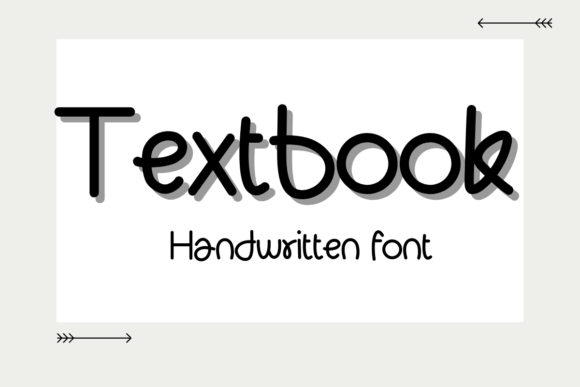
Welcome to the world of Textbook Font, where creativity knows no bounds. This expressive, sans serif font is handcrafted by the renowned Sirinart, a master of the written arts. With its delicate strokes and unmistakably authentic style, Textbook Font has quickly become the darling of those who seek to make a bold statement.
Step into a world where your imagination takes flight. Picture the sheer beauty of hand-lettered banners, each character bursting with personality. Envision social media posts that leap off the screen, captivating your audience with their charm and individuality. Unleash your boundless creativity in designing mugs, cards, shirts, and stationery that speak to your soul. Textbook Font is the perfect companion for those who dare to be different.
With Textbook Font, your designs will transform into captivating works of art. Its natural flow and seamless integration into various designs make it an indispensable tool for any creative. Whether you're a seasoned designer or just starting, Textbook Font will elevate your work to new heights.
Join the legions of satisfied users who have discovered the magic of Textbook Font. Let your imagination run wild as you create designs that resonate with your audience and leave lasting impressions. From enchanting banners to heartfelt greeting cards, Textbook Font will be your trusted partner in expressing yourself in a way that is uniquely yours.